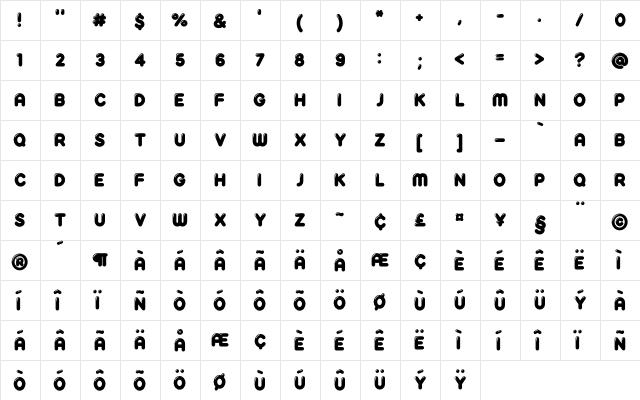
Reglisse Fill
| Foundry | Youssef Habchi |
| Designer | Youssef Habchi |
Design Context for Reglisse Typeface
Reglisse offers clean, dependable letterforms without strong stylistic allegiance, making it a practical choice for designers who need flexibility.
Pro Tip: Pair Reglisse with a font of contrasting weight or personality to build a more expressive typographic hierarchy.